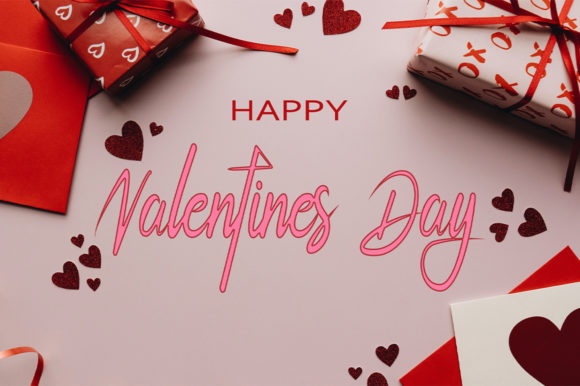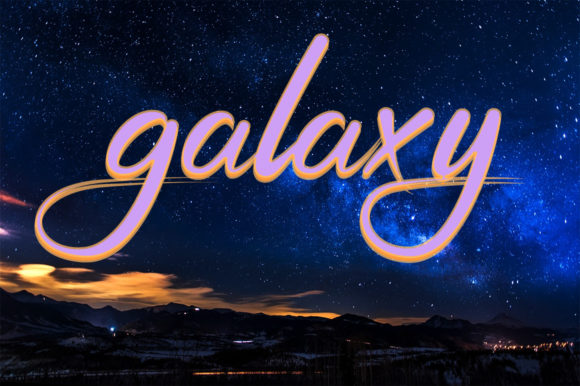
Galaxy Font
db-ku.com - Script & Handwritten -- Galaxy is a stylish script font featuring a nice flow. It was designed for packaging products, invitation cards, posters, product logos, greeting cards, business cards and more.